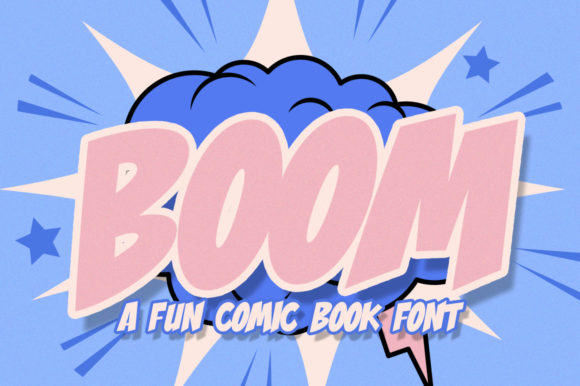
Journey into the realm of nostalgia and pop culture brilliance with Boom Comic Font, the display font extraordinaire, meticulously crafted by the creative minds at Salt and Pepper Fonts. A font that resonates with the vibrant spirit of retro design, Boom Comic Font is your gateway to unleashing captivating creations that transcend time and ignite imaginations.
Immerse yourself in the world of iconic comic books, vintage posters, and retro advertisements with Boom Comic Font. Its bold, dynamic strokes and playful character breathe life into your designs, transporting you to an era where heroes and villains battled for supremacy, and every page held the promise of adventure.
With Boom Comic Font as your creative weapon, transform ordinary text into extraordinary statements. Its distinct letterforms, inspired by the golden age of comics, add an instant touch of vintage charm to your posters, flyers, book covers, and social media graphics. Capture the attention of your audience with headlines that pop off the page, slogans that command attention, and quotes that resonate with timeless appeal.
Harness the power of Boom Comic Font to create eye-catching logos and branding elements that evoke a sense of nostalgia and wonder. Design business cards that make a lasting impression, letterheads that exude professionalism, and packaging that tells a story before the product is even revealed. Let your brand identity radiate the charm of a bygone era while maintaining a contemporary edge.
Unlock the endless possibilities of Boom Comic Font in the realm of digital design. Craft website headers that transport visitors to a world of retro-futuristic wonders, social media posts that spark conversations, and online advertisements that cut through the noise and leave a lasting impact. Make your digital presence a reflection of your unique style and passion for the classics.
With Boom Comic Font, you're not just downloading a font; you're embarking on a journey through time, a celebration of pop culture, and an exploration of the boundless creativity that lies within you. Unleash the power of Boom Comic Font today and let your designs make a statement that echoes through the ages.